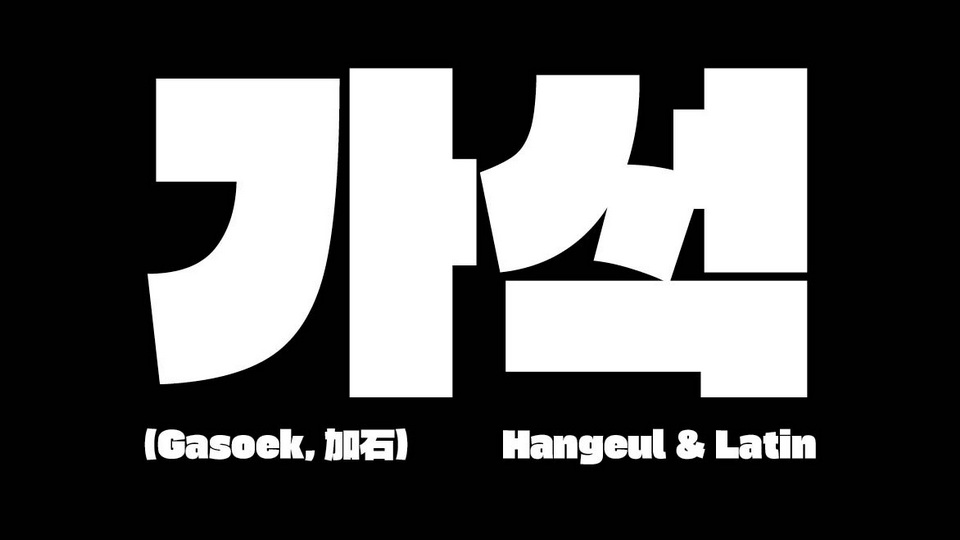
Download Gasoek font, a display typeface inspired by the very thick sans serif font used in Japanese cartoons. Gasoek is not just a thick gothic font, but a font that has a “character” and gives a unique impression.
Designer: Jiashuo Zhang